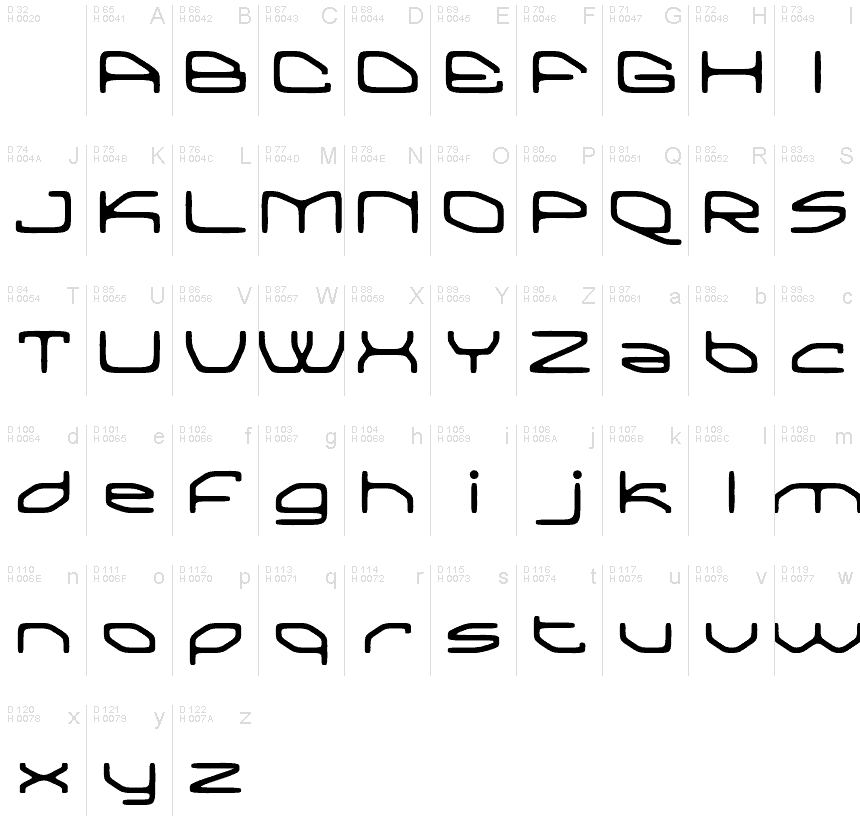
GefalentDrawn-Regular Demo
Gefalent Drawn font by Craft Supply Co. is a display typeface of an expanded width and light weight. Its futuristic style involves geometric shapes and a technological feel, all while being able to maintain an elegant appearance. These features form a perfectly sleek modern design that stands out confidently in any context.